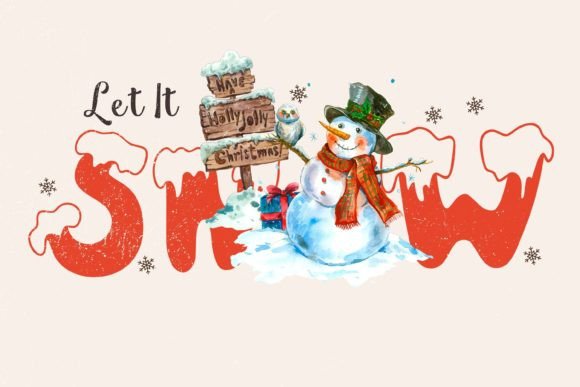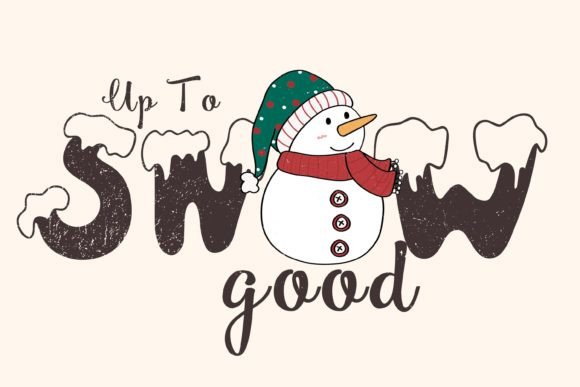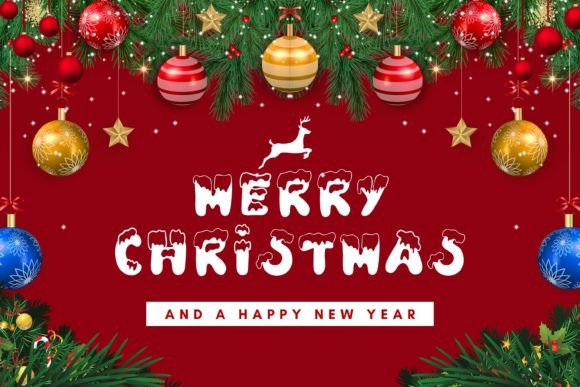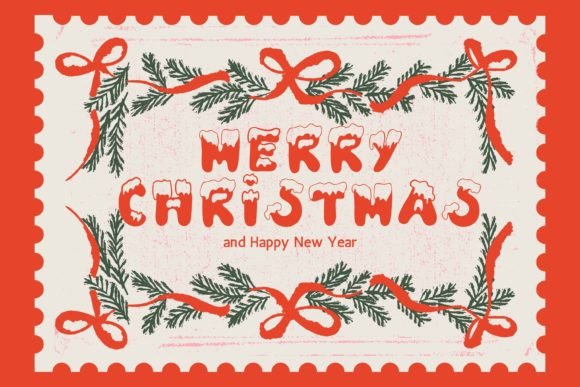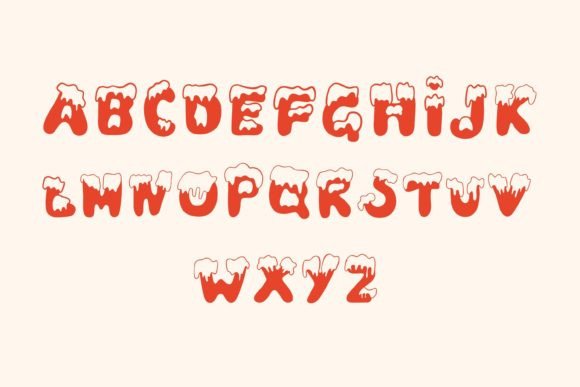
Christmas Snow Font: Add a Touch of Youth and Joy to Your Designs
Are you looking for a font that can add a touch of youth and joy to your designs? Look no further than the Christmas Snow Font. This incredibly cute and assertive display font is perfect for party invitations, gatherings, and any design that requires a festive and playful touch.
What is Christmas Snow Font?
Christmas Snow Font is a unique and eye-catching display font that is designed to bring a touch of winter wonderland to your designs. With its bold and playful letters, this font is sure to grab attention and add a festive touch to any project. Whether you’re designing party invitations, holiday cards, or social media graphics, Christmas Snow Font is the perfect choice.
Features of Christmas Snow Font
- Cute and Assertive Design: Christmas Snow Font features a cute and assertive design that is sure to grab attention.
- Perfect for Festive Designs: This font is perfect for designing party invitations, holiday cards, and social media graphics.
- Easy to Read: Despite its bold and playful design, Christmas Snow Font is easy to read and understand.
- Versatile: This font can be used for a variety of design projects, from digital graphics to print materials.
How to Use Christmas Snow Font
- Party Invitations: Use Christmas Snow Font to create festive and fun party invitations.
- Holiday Cards: Add a touch of winter wonderland to your holiday cards with Christmas Snow Font.
- Social Media Graphics: Use Christmas Snow Font to create eye-catching social media graphics that are sure to grab attention.
- Digital Graphics: Use Christmas Snow Font to create digital graphics, such as blog headers and email newsletters.
Benefits of Using Christmas Snow Font
There are many benefits to using Christmas Snow Font in your designs. Here are a few:
- Adds a Touch of Youth and Joy: Christmas Snow Font is sure to add a touch of youth and joy to your designs.
- Perfect for Festive Designs: This font is perfect for designing festive and fun designs.
- Easy to Read: Christmas Snow Font is easy to read and understand, making it perfect for designs that require a clear message.
- Versatile: This font can be used for a variety of design projects, from digital graphics to print materials.
Tips for Using Christmas Snow Font
Here are a few tips for using Christmas Snow Font:
- Use it Sparingly: Use Christmas Snow Font sparingly to add a touch of festivity to your designs.
- Pair it with Other Fonts: Pair Christmas Snow Font with other fonts to create a unique and eye-catching design.
- Have Fun: Most importantly, have fun with Christmas Snow Font and be creative!
Christmas Snow Font is a unique and eye-catching display font that is perfect for adding a touch of youth and joy to your designs. With its bold and playful letters, this font is sure to grab attention and add a festive touch to any project. Whether you’re designing party invitations, holiday cards, or social media graphics, Christmas Snow Font is the perfect choice. So why not give it a try and see how it can add a touch of magic to your designs?